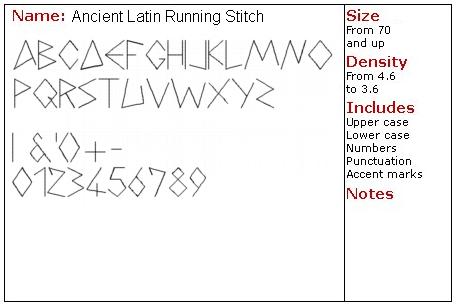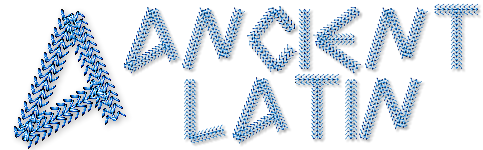
Ancient Latin Run Stitch
Based on the Ancient Latin font style. This font is created with a central running stitch for small compact lettering.
Use a Motif Stitch on levels that support this feature for a truly unique and stunning design
Style : Running Stitch